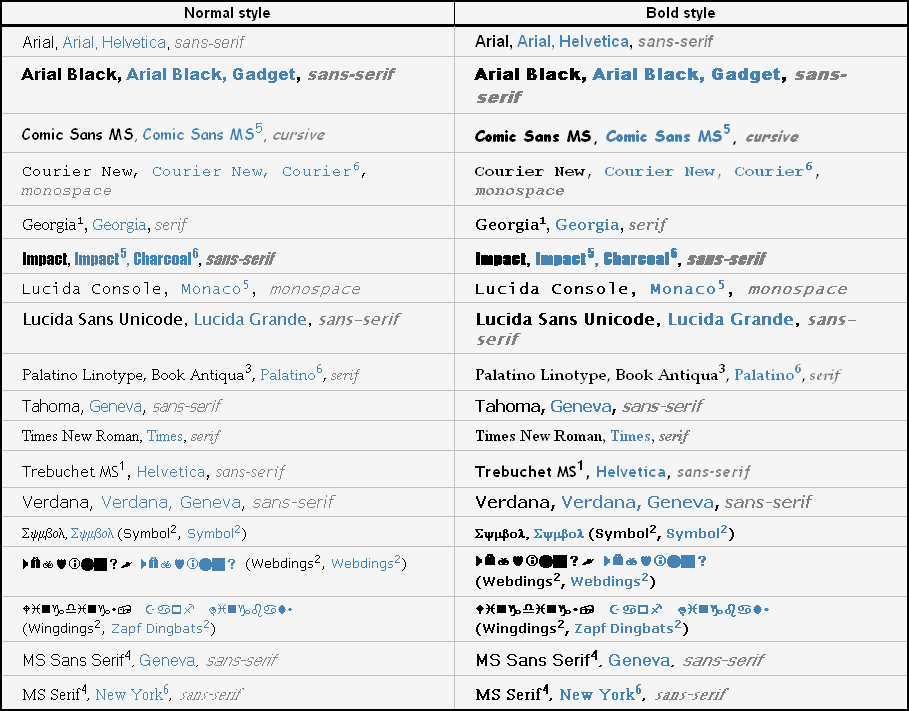
Most Common Internet Fonts
Most Common Internet Fonts. Commisioned by microsoft to work on the web, althought it's often used in print as well. The former simplifies the process of adding google fonts to your website, while uaf allows you to upload fonts to your site directly.
It is also the number one font we choose whenever we want to add more character to the site design while maintaining a clear, readable style. Ms serif 4, new york6, serif. Webfont licenses on myfonts don’t require a subscription.
The 50 Most Popular Fonts On The Web.
“web safe” fonts mean that they will look perfect no matter the browser you are viewing them from. Helvetica is one of the most common font names in the world. Open sans roboto lato helvetica montserrat.
Sans serif fonts are the most common and popular on the web, so you have a lot of options to choose from: Other typefaces from hoefler & co. 1 georgia and trebuchet ms are bundled with windows 2000/xp and they are also included in the ie font pack (and bundled with other ms applications), so they are quite common in windows 98 systems.
What are the categories of html fonts? Like sentinel and whitney have been popular as well, however, i’m surprised by the relative absence of archer on the web. The letters are almost elongated, which makes it easy to read online.